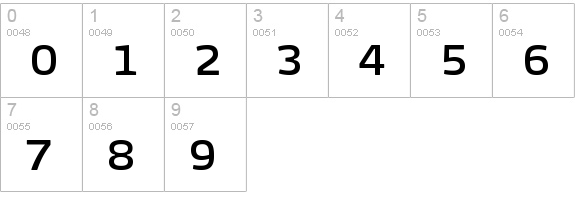
MaxTF-SemiBold is a sub-bold, structured variant in the MaxTF typeface family \xE2\x80\x94 well suited to sub-headlines and emphasised passages.
MaxTF-SemiBold is a modern and versatile typeface that strikes the perfect balance between boldness and sophistication. With its strong and assertive appearance, this font is ideal for making a statement in your designs. Whether you are creating eye-catching headlines or designing sleek logos, MaxTF-SemiBold is sure to make a lasting impression. What sets MaxTF-SemiBold apart is not just its boldness, but also its readability and versatility. It is designed to be legible at various sizes, making it suitable for both print and digital applications. The sleek lines and sharp angles of this font give it a contemporary and edgy look that will elevate any design project. The best part? MaxTF-SemiBold is available for free download at FontsMarket.com. This means you can easily access this stylish and impactful font to enhance your creative projects without any cost. Don't miss out on the opportunity to add MaxTF-SemiBold to your font collection and take your designs to the next level.